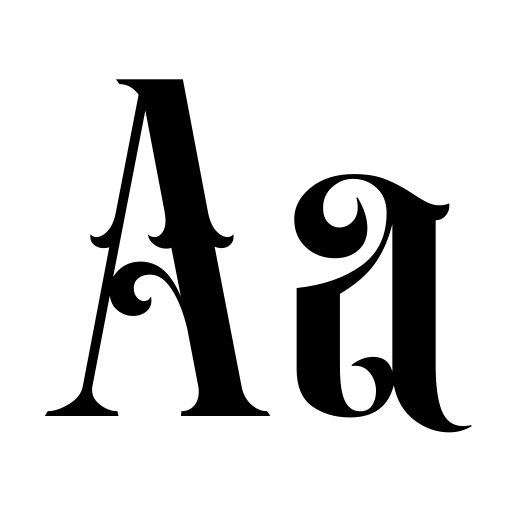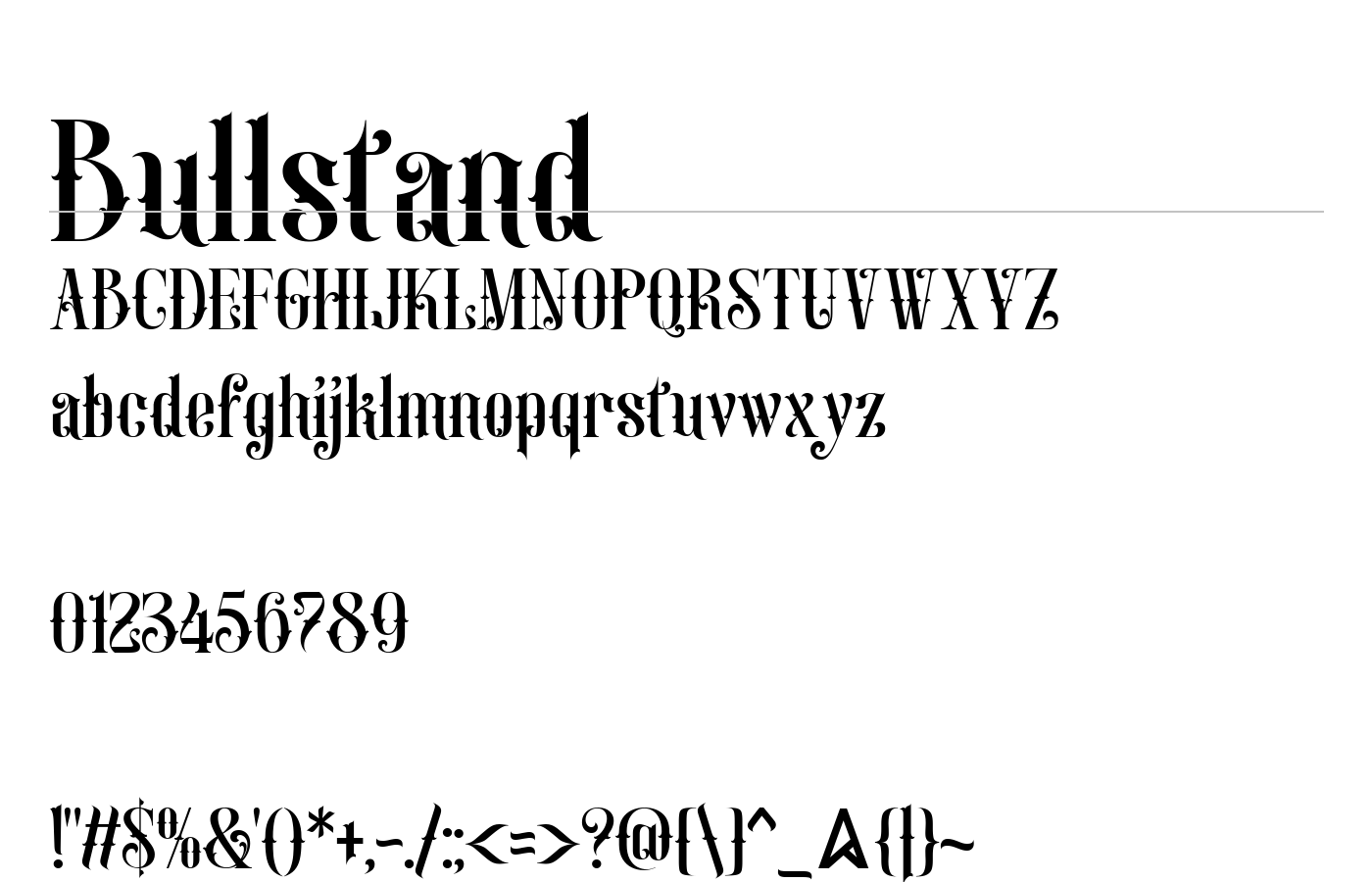
Bullstand is a bold, condensed serif font with a vintage, decorative flair characterized by high stroke contrast and sharp, refined serifs. Its distinctive swirls and flourishes give it an elegant, theatrical feel, making it ideal for eye-catching headlines, logos, and creative branding that seeks a dramatic and sophisticated touch. This font works beautifully in fashion, luxury, and editorial designs where a strong yet stylish statement is desired.
Bullstand Font
About Bullstand Font